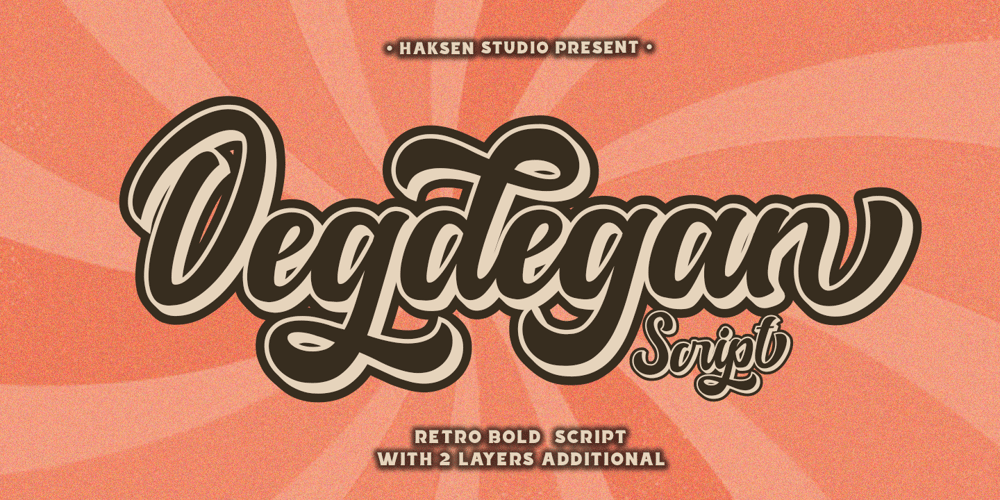
Degdegan
Degdegan font
Degdegan Font Family was designed by Sarwo Edhi Prayitno and published by Haksen. Degdegan contains 3 styles and family package options. Degdegan is a futuristic classic bold script style with unique alternates feel nice balanced. Provide many variant ligatures style make the design letter looks incredible. Honestly it works perfectly for headlines, logos, posters, packaging, T-shirts and much more.Recommended to use in Adobe Illustrator or Adobe Photoshop with opentype feature.Ligatures feature is default setting in Adobe Illustrator or Adobe Photoshop in Uppercase character. So when you want not to use the ligatures.Open glyphs panel : In Adobe Photoshop choose tool Window >> Character and then please klick fi symbol In Adobe Illustrator choose tool Window >> Type >> Open Type and then please klick fi symbol How to access Alternates Character?Open glyphs panel : In Adobe Photoshop choose tool Window >> glyphs In Adobe Illustrator choose tool Type >> glyphs If you have questions, just send me a message and I’m glad to help.Have a great day,Haksen